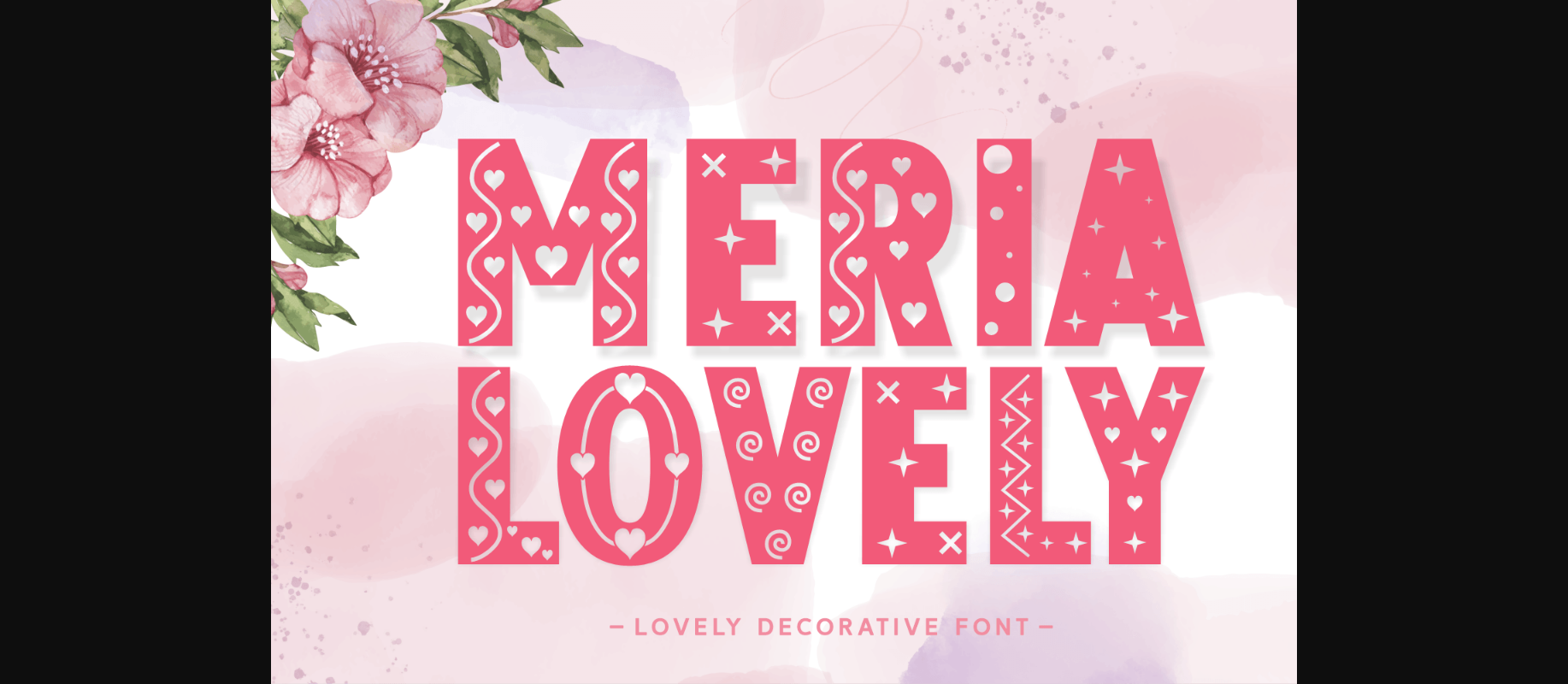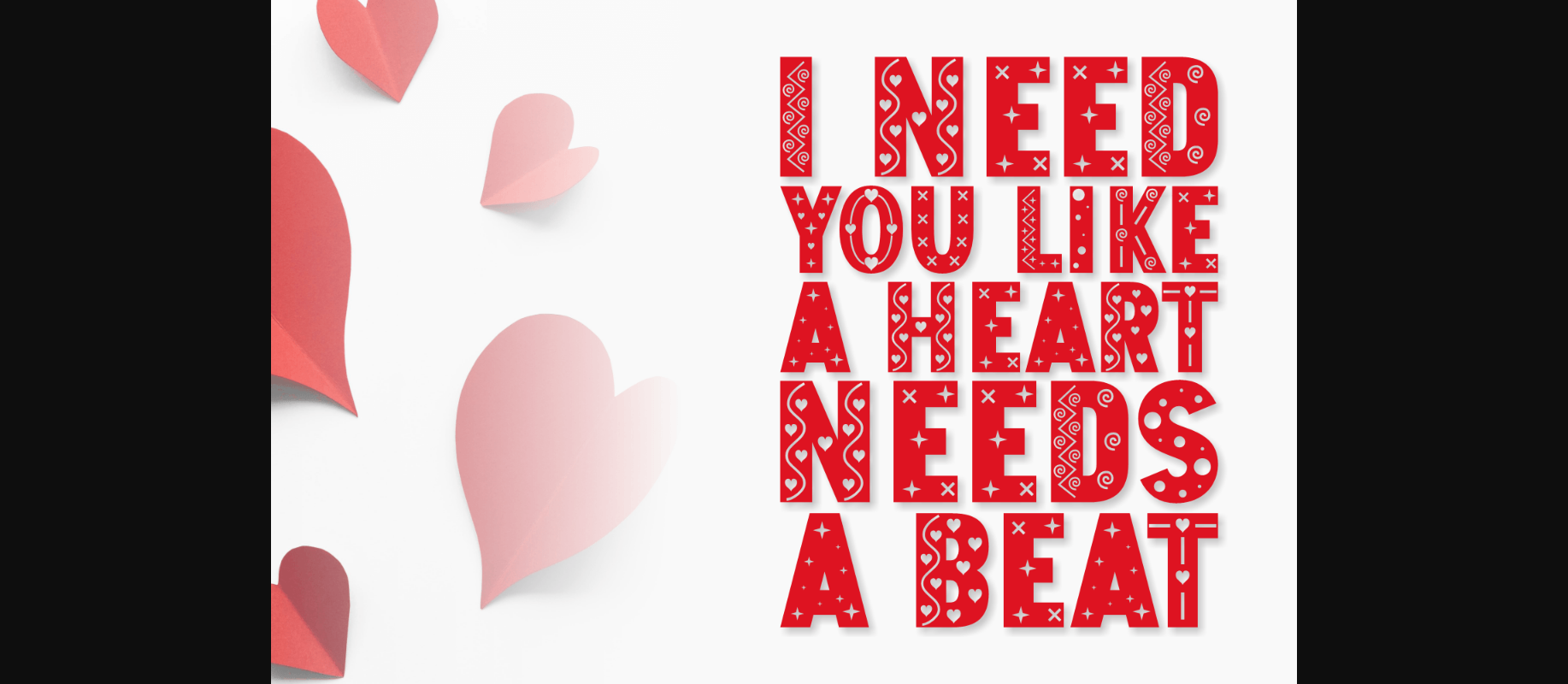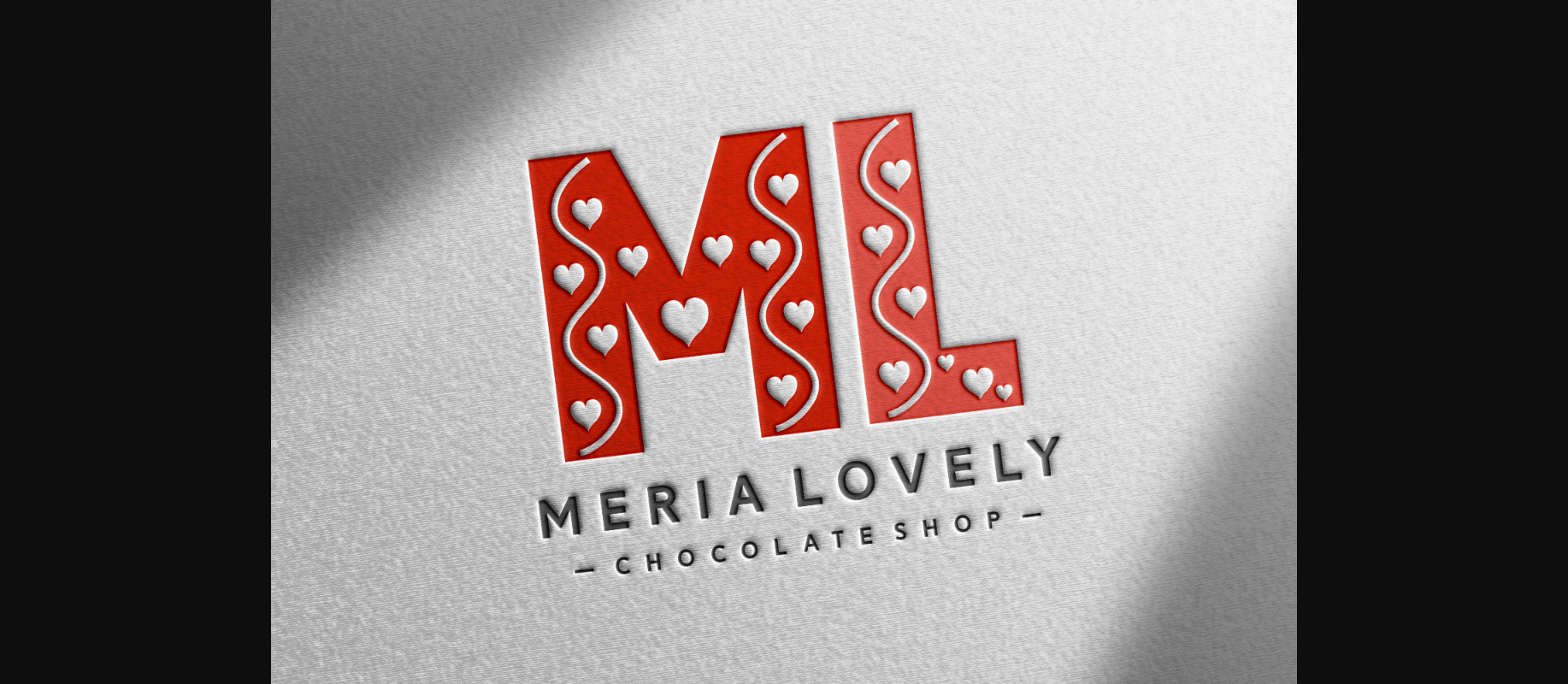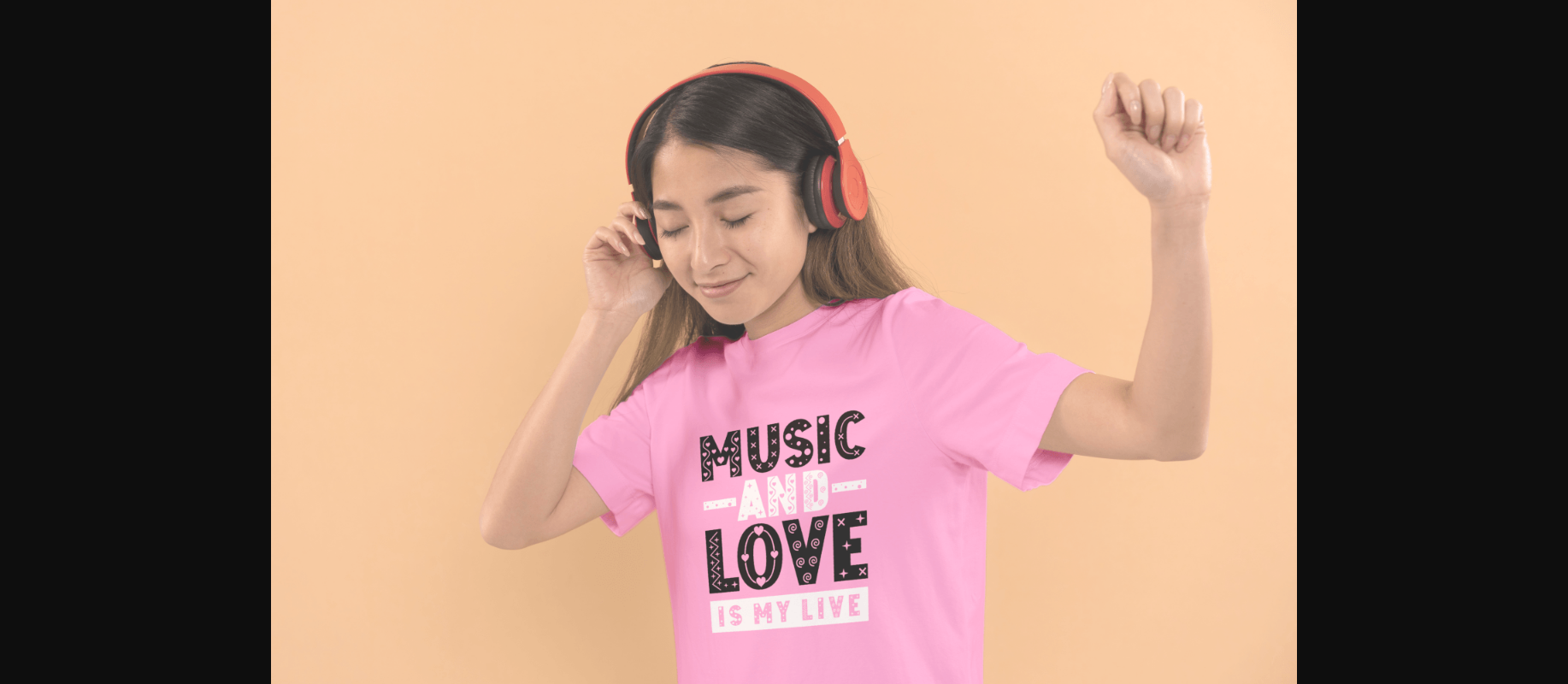
About Meria Lovely Font
Meria Lovely is a lovely display font! Decorated with hearts and all kinds of swirls, it makes the perfect candidate for your new favorite font! Use it confidently in cards, quotes, greeting cards, crafts, logos, and business cards.